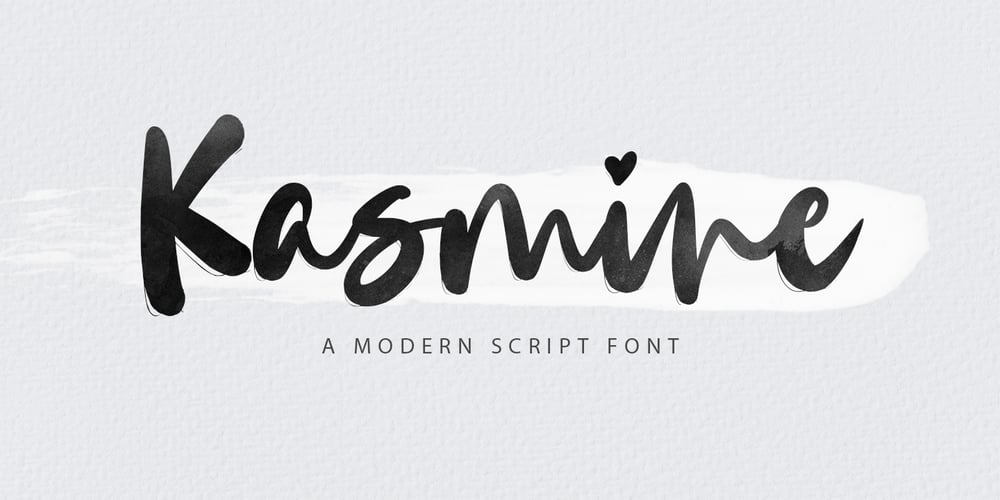
Kasmine Font Family was designed by Fajar Gunawan and published by Fargun Studio. Kasmine contains 2 styles and family package options. Kasmine is a handwritten stylish copperplate calligraphy font with a dancing baseline and a classic and elegant touch. Can be used for various purposes. such as headings, signature, logos, wedding invitations, t-shirts, letterheads, signage, labels, news, posters, badges etc.